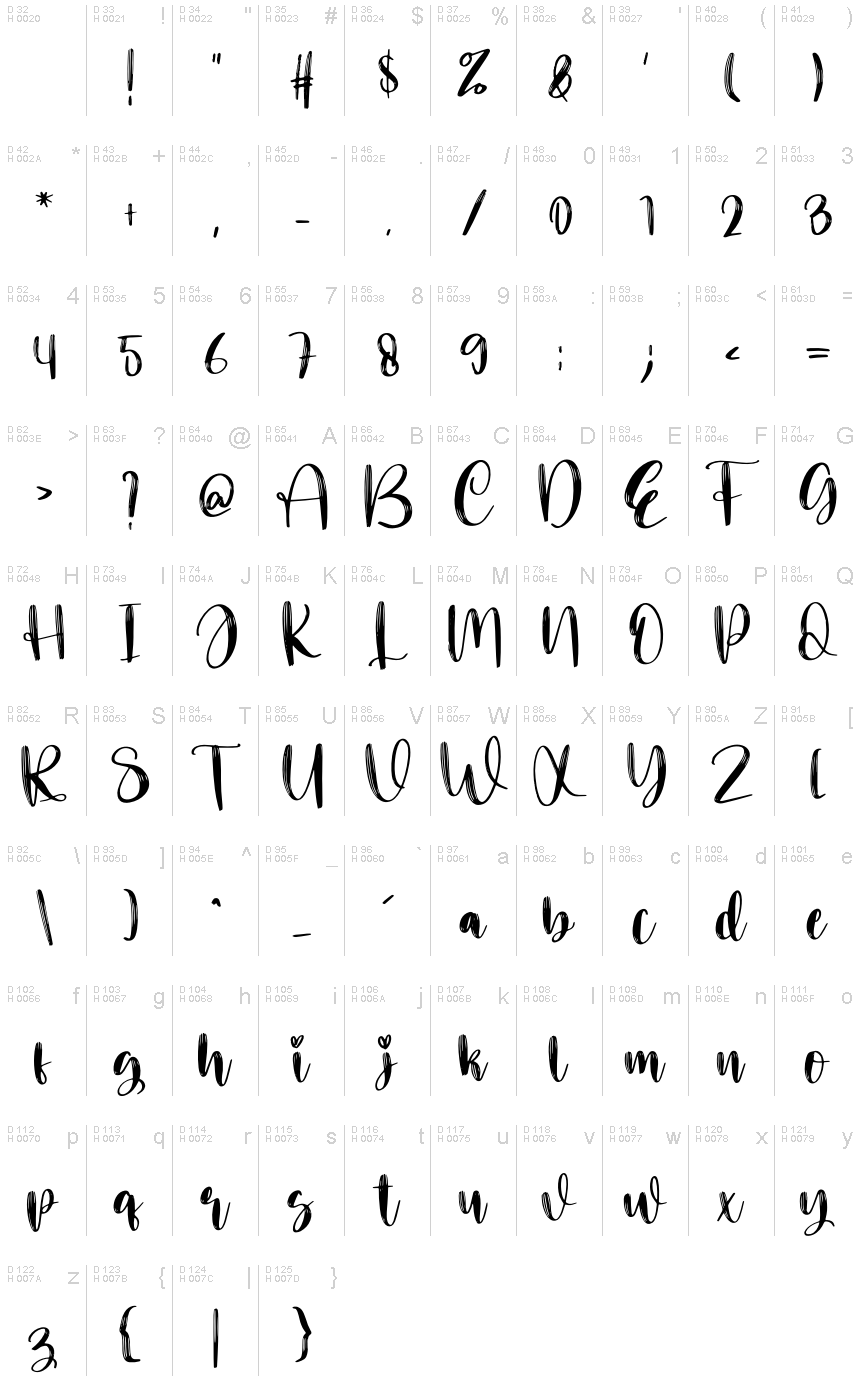
Sweety Valentine
Sweety Valentine, a captivating brush-style font created by the renowned designer Scratchones, exudes a whimsical charm that enchants the senses. With its bold, flowing strokes and organic fluidity, this font effortlessly captures the essence of romance and affection. The elegant, script-like letterforms lend a sense of timeless sophistication, while the subtle playfulness embedded within each character adds a delightful touch of personality.
This versatile font thrives in a variety of design applications, from heartfelt wedding invitations and greeting cards to captivating social media graphics and charming product packaging. Its expressive nature and distinctive style make Sweety Valentine an excellent choice for projects that aim to convey a warm, affectionate tone, evoking emotions of love and sentiment.